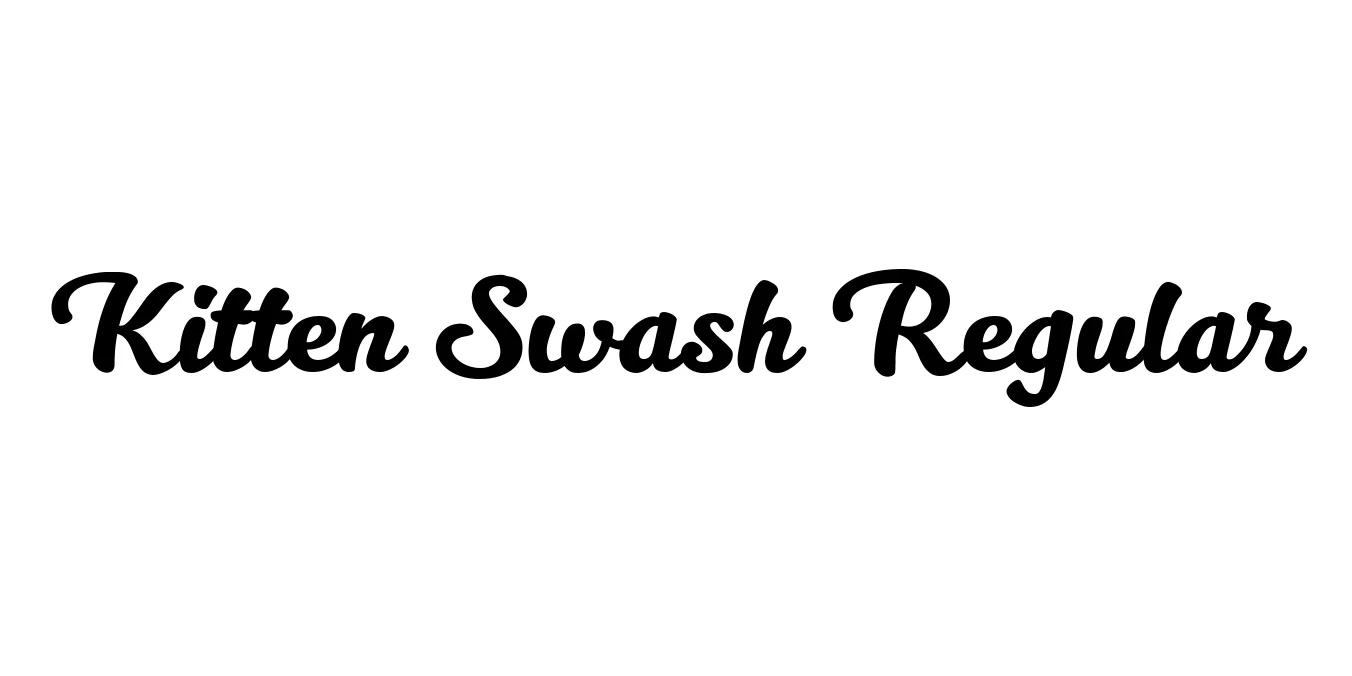
Kitten Swash Regular
Designed by Cosimo Lorenzo Pancini
Kitten Swash Regular is a whimsical and energetic script font designed by Cosimo Lorenzo Pancini for the Zetafonts foundry. Part of the broader award-winning Kitten family, this specific weight focuses on the elegant, sweeping curves and decorative flourishes that mimic the playful movements of a cat's tail. It draws inspiration from brush-lettering and 1950s sign-painting styles, blending vintage charm with a modern, "kawaii" aesthetic that appeals to contemporary designers.
The font is highly versatile due to its extensive collection of alternates and ligatures, which allow for a truly customized, hand-lettered look. Since its release, Kitten Swash has become a favorite for projects that require a bold personality and a sense of warmth. Its heavy strokes and smooth connections make it particularly effective for large-scale displays, ensuring that the playful details are easily visible and engaging for the viewer.
Kitten Swash Regular Best Uses
Creating approachable and fun brand identities for cafes, pet shops, or creative agencies.
Designing eye-catching labels for confectionery, organic food, and beauty products.
Crafting high-energy quotes, thumbnails, and promotional graphics for Instagram or Pinterest.
Adding a personal and whimsical touch to invitations and celebratory stationery.